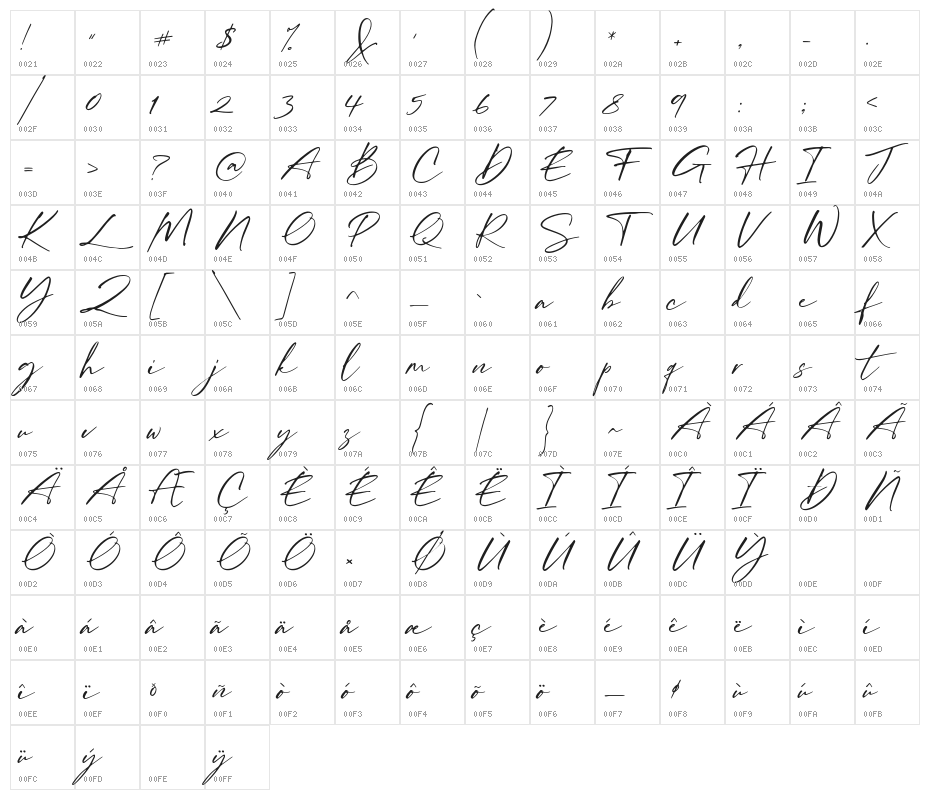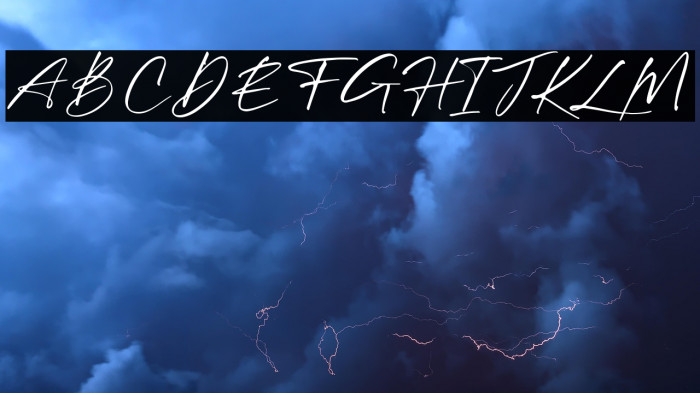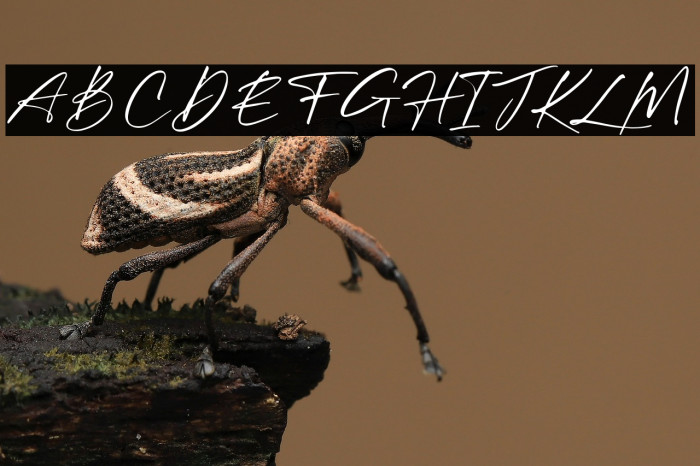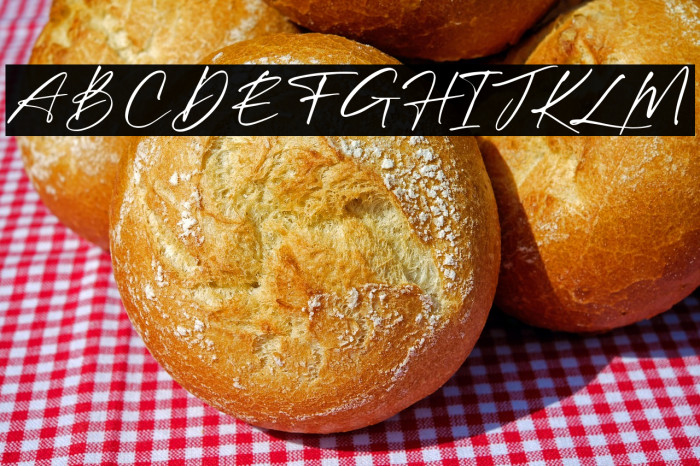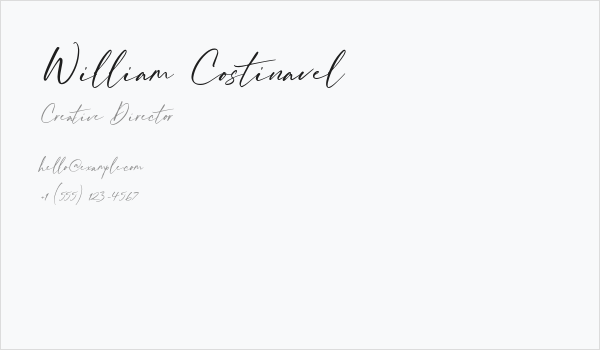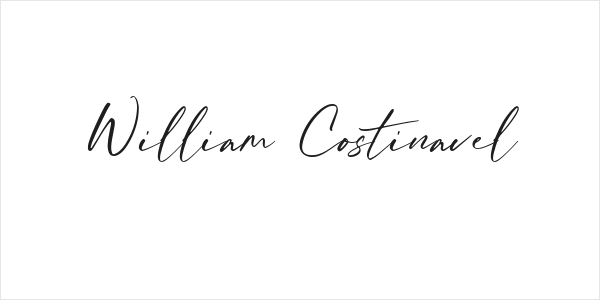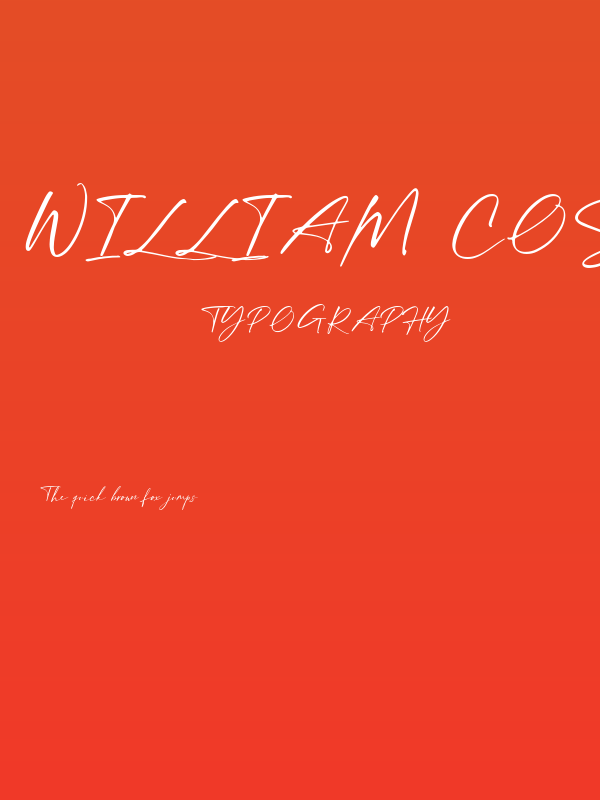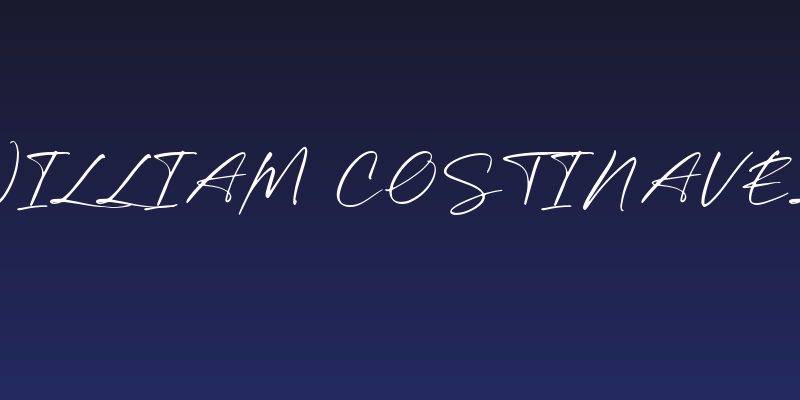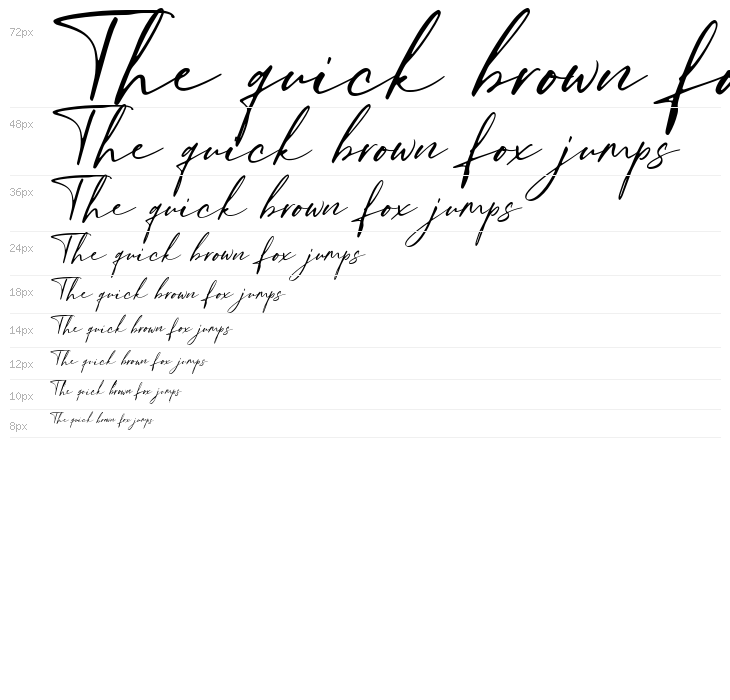
William Costinavel Font
William Costinavel Description
This font features an elegant and flowing script style, characterized by its smooth, cursive strokes and a natural handwritten appearance. The uppercase letters are slightly more structured, maintaining a consistent height, while the lowercase letters exhibit a graceful, fluid motion with varying heights and loops. The numerals are distinct and easy to read, complementing the overall style. Special characters are seamlessly integrated, maintaining the font's cohesive look. This font exudes a sense of sophistication and personal touch, making it suitable for projects that require a humanistic and artistic flair.
Overall StyleElegant, Artistic
Use CaseLogos, Invitations, Personal Branding
Proposed ProjectsIdeal for wedding invitations, personal branding, greeting cards, and artistic projects.